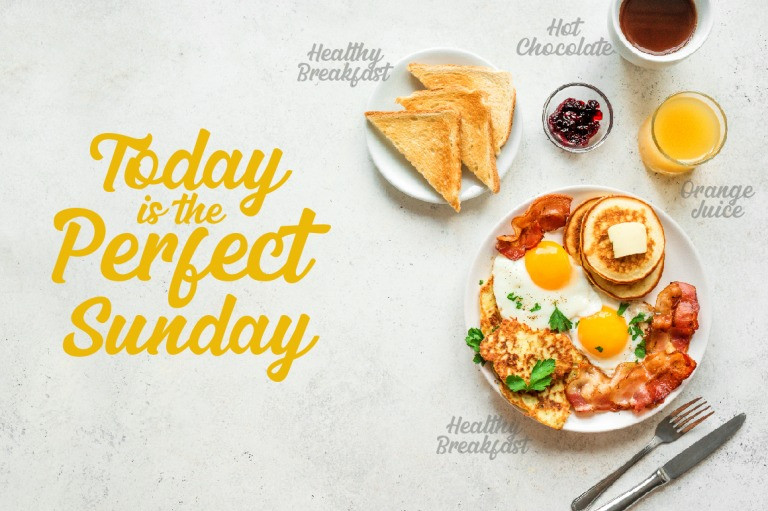
Lovely Script Font
Lovely is a lovely font which created with special touch to giving beautiful and attractive look.
Type of modern calligraphy also included in Lovely, it’s very suitable if applied to every design such as poster designs, signatures, logos, quotes, album covers, business cards, product designs, and many other design projects.